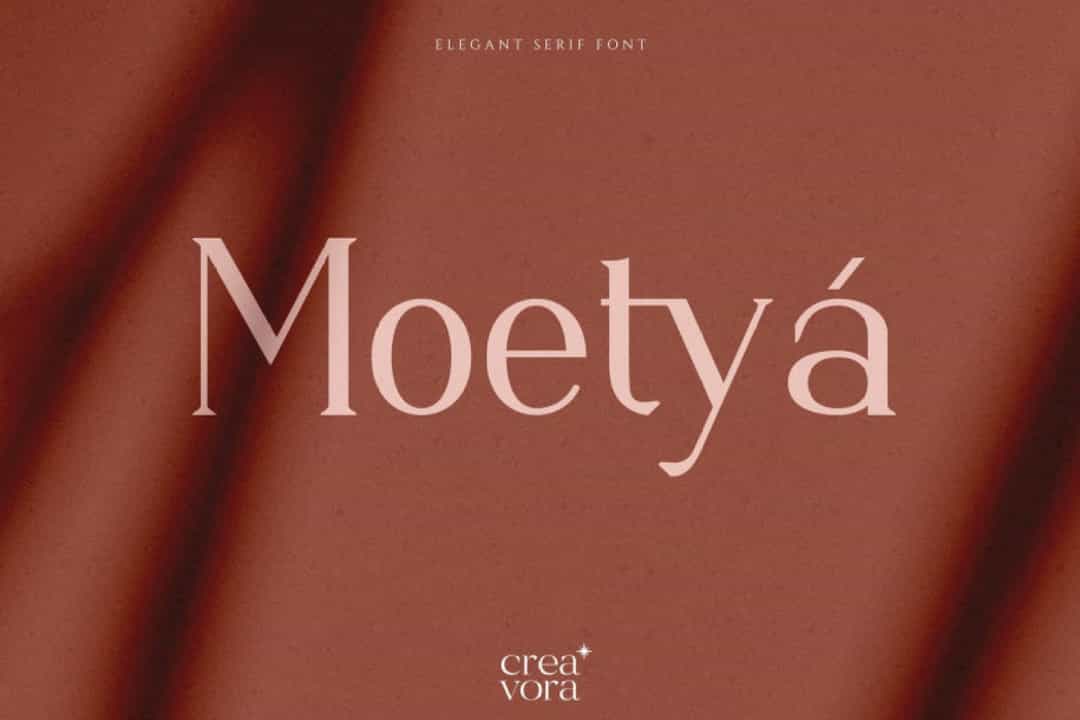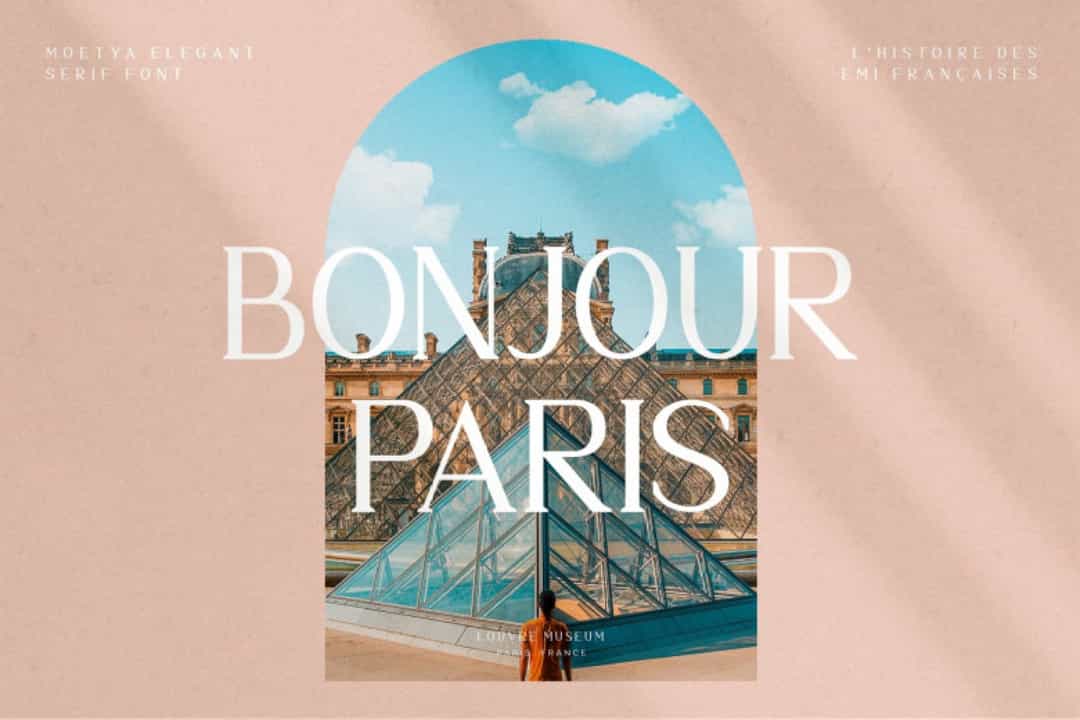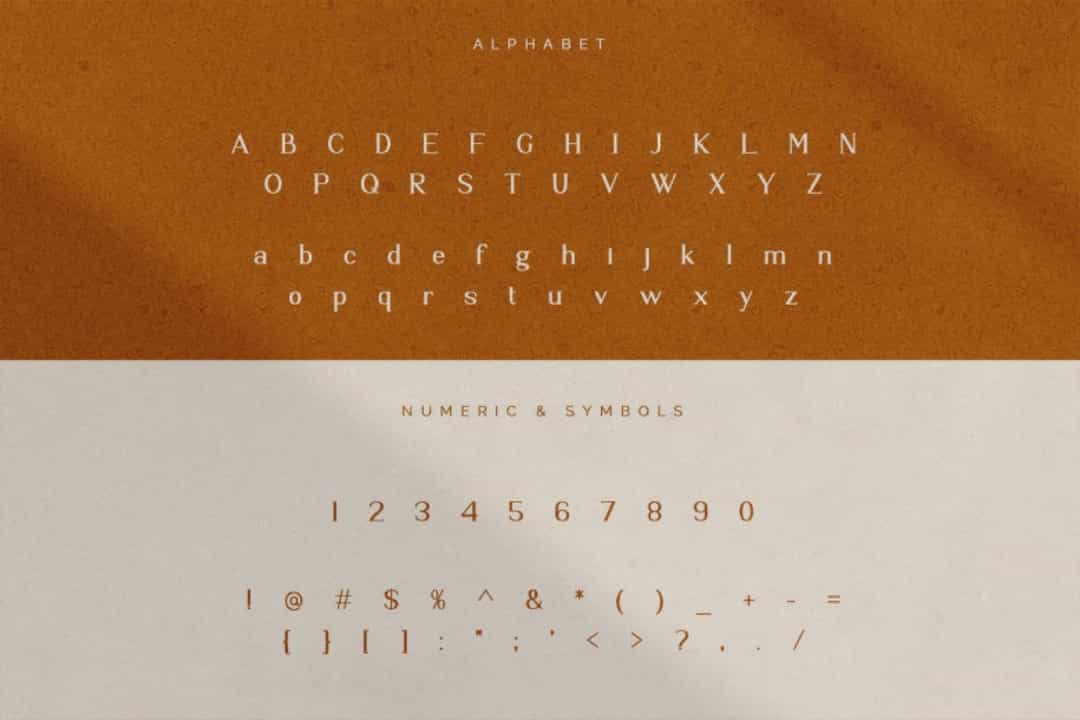
Moetya is an exquisite light, delicate, and thin serif font. PUA encoded, it provides access to all characters and washes without difficulty! Get lost in its incredible versatility for stunning designs!